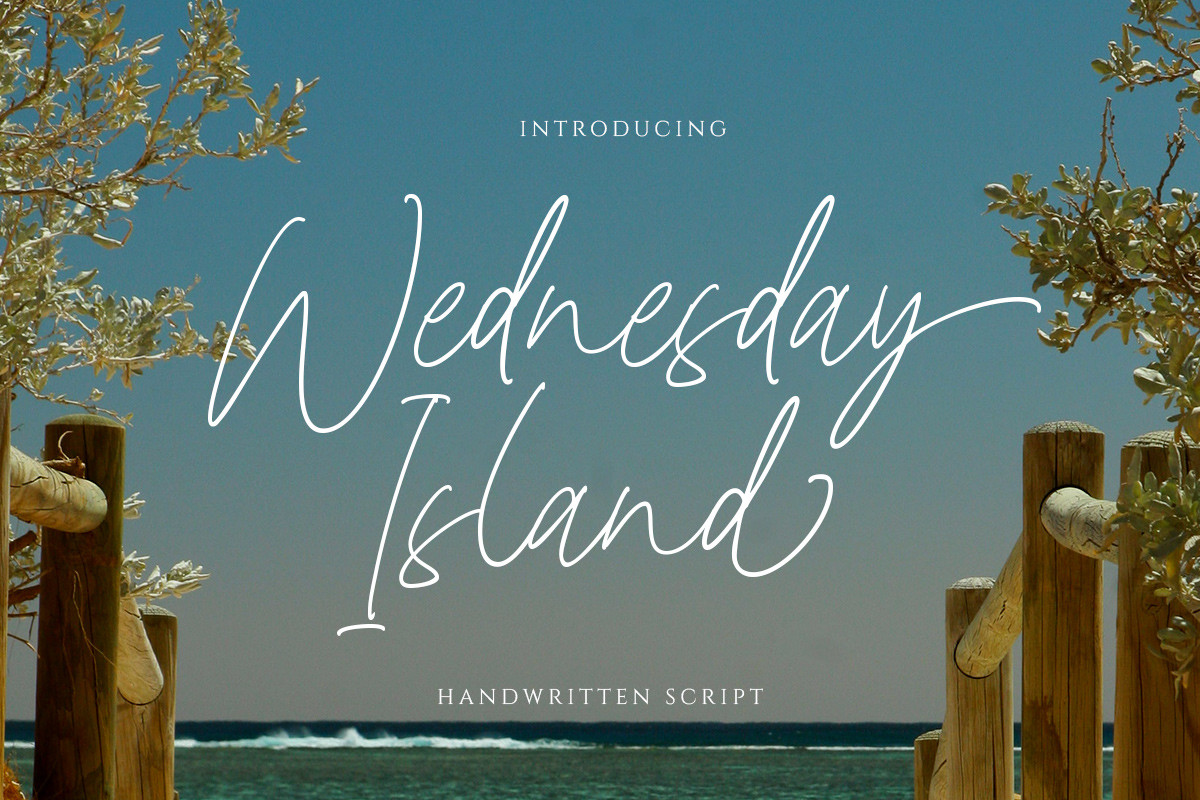
Wednesday Island Font
Wednesday Island Font is perfect for tropical resort branding, island vacation marketing materials, coastal retreat signage, beachside restaurant menus, oceanic tourism promotions, serene spa center graphics, peaceful meditation retreat communications, tranquil wellness center branding, relaxing cruise line advertising, and calming coastal lifestyle blog headers. This serene typeface brings island tranquility to tropical hospitality brands, ocean-themed businesses, coastal real estate marketing, beach vacation services, and peaceful escape destinations.
Wednesday Island Font is exciting because it captures the perfect midweek escape and island serenity through its peacefully flowing letterforms that evoke the calm rhythm of ocean waves and tropical tranquility. The font features relaxed characters with gentle curves and island-inspired proportions that reflect the peaceful pause of Wednesday combined with the timeless serenity of island life, creating a sense of mental escape and coastal calm. Its distinctive construction demonstrates island wisdom with carefully balanced elements that create an immediate sense of tropical peace and midweek reflection. The font's island presence and peaceful authenticity make it perfect for brands seeking to communicate serene escape, coastal tranquility, and the restorative power of island life in their visual communications.
Wednesday Island Font family includes various island-inspired styles: Light, Regular, Medium, Bold, Italic, Flowing, Peaceful, Serene, Condensed, Extended, Tropical, and Coastal variants. Each family member maintains the core island DNA while offering different levels of tranquility for diverse peaceful design applications. The comprehensive font collection ensures consistent island branding across tropical campaigns, coastal products, and serene communication materials.
Whether you're creating island resort brand identities, designing tropical marketing materials, developing coastal website headers, or crafting peaceful promotional campaigns, Wednesday Island Font delivers outstanding island appeal and coastal authenticity. The font's distinctive serene personality excels in tropical logos, coastal packaging design, peaceful applications, and island projects where tropical tranquility and coastal serenity are essential.